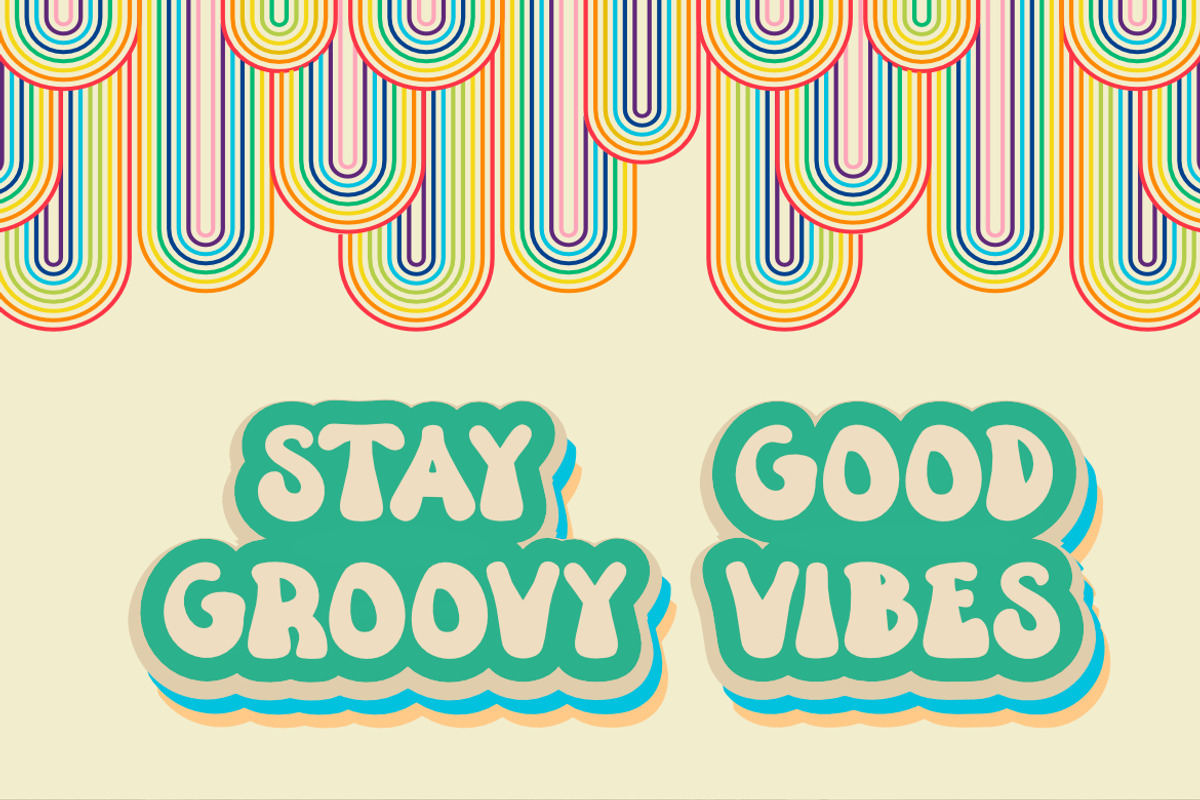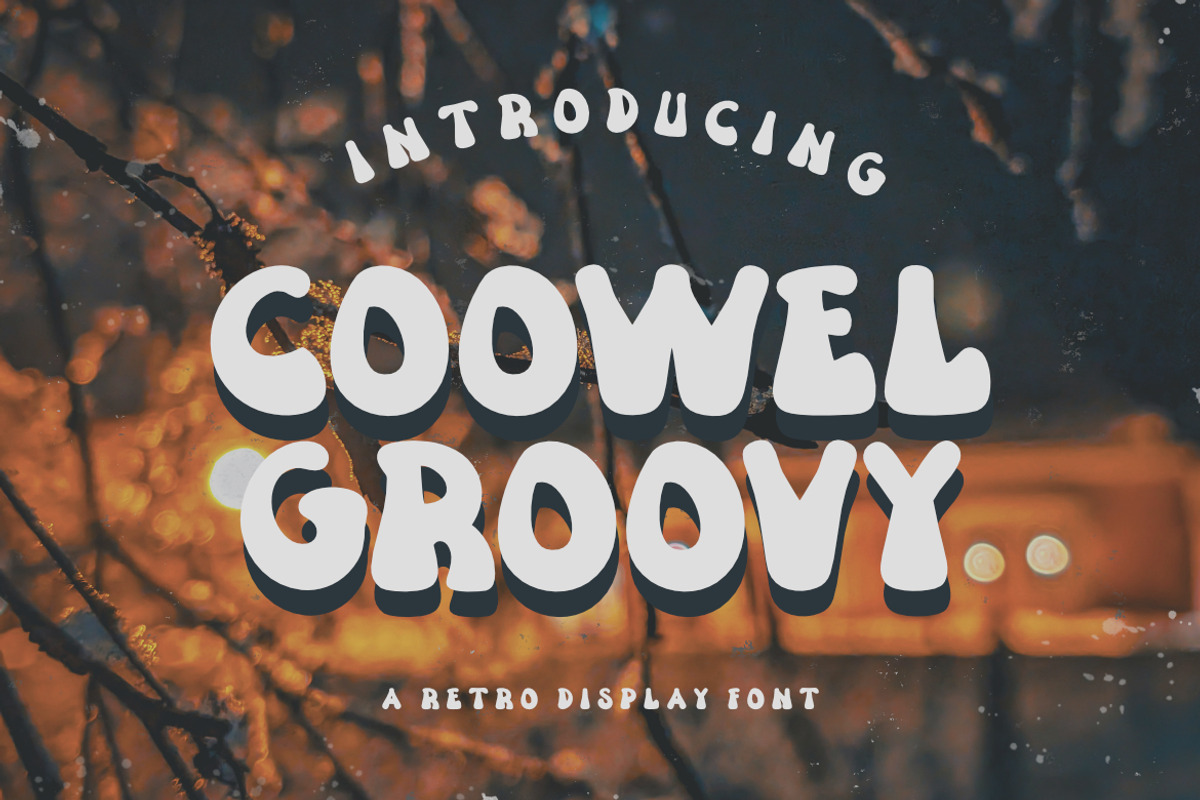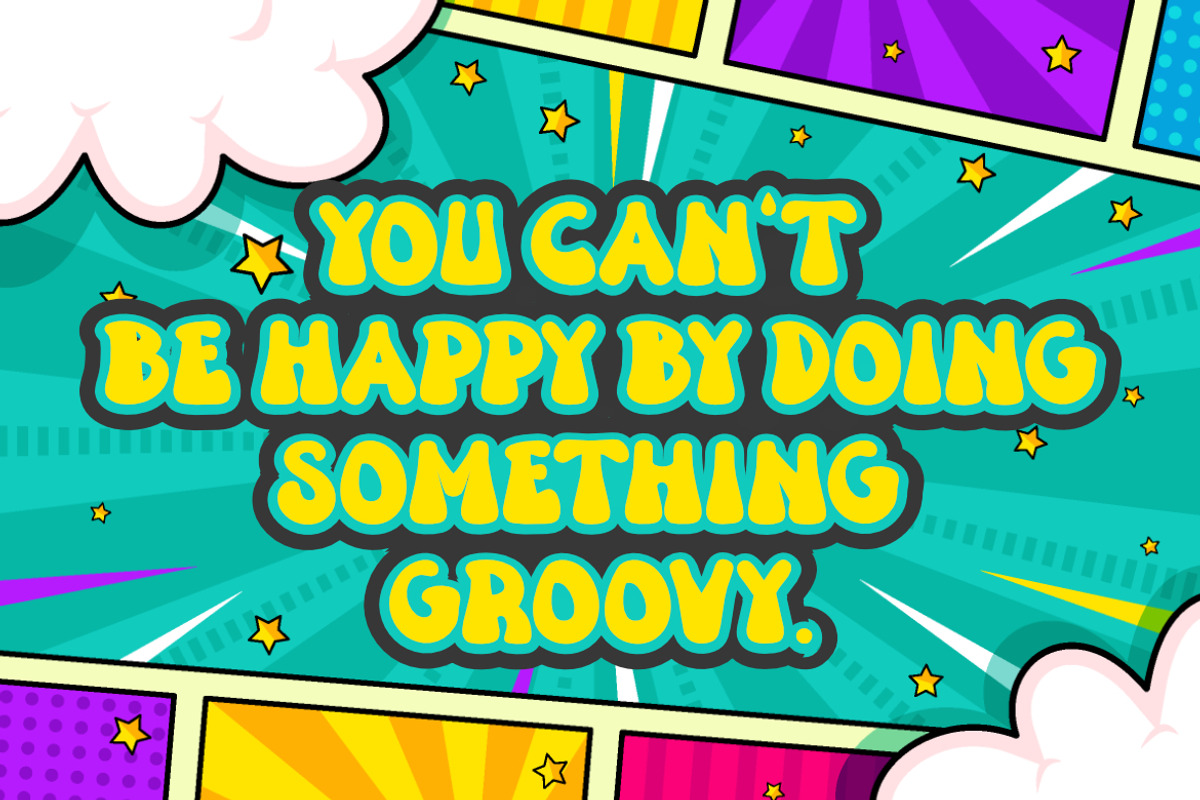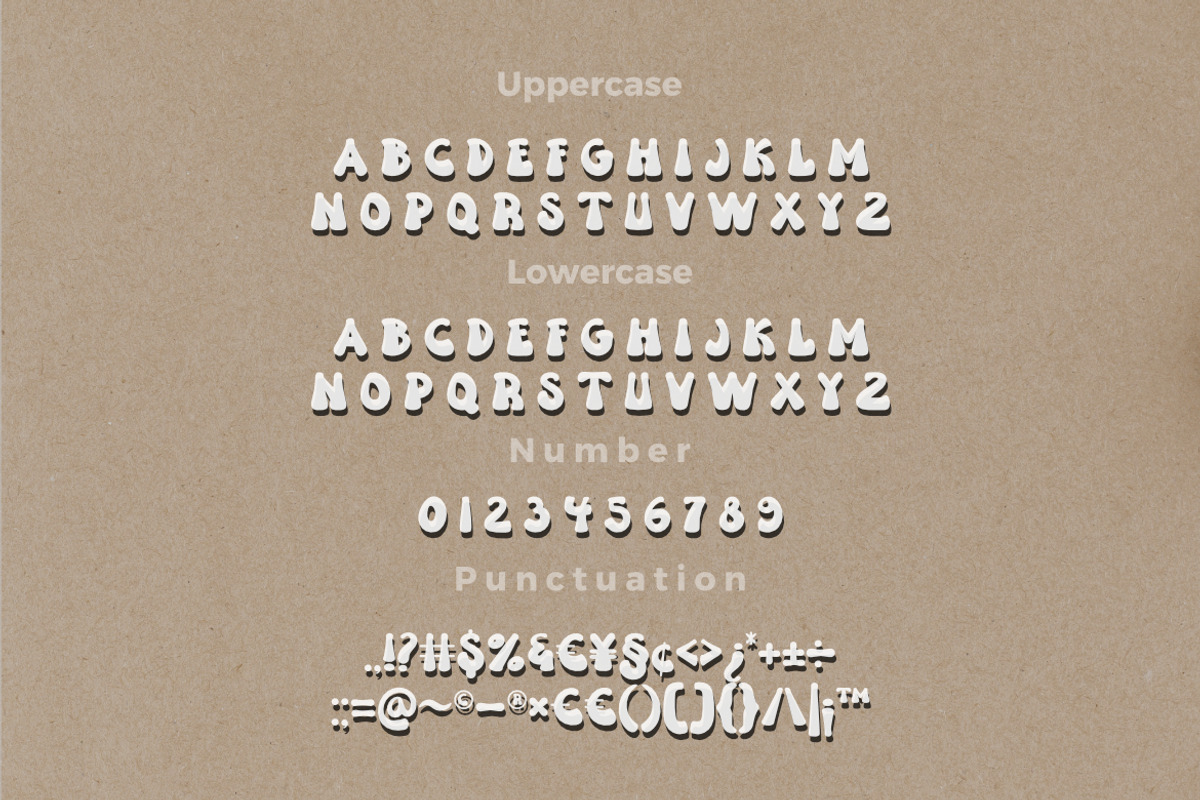
Coowel Groovy Retro font
Coowel Groovy Retro Font, inspired by Groovy typography. This font is made with a high premium quality level which you can use as flyers, quotes, posters, banners, packaging, merchandise, logotypes and much more.